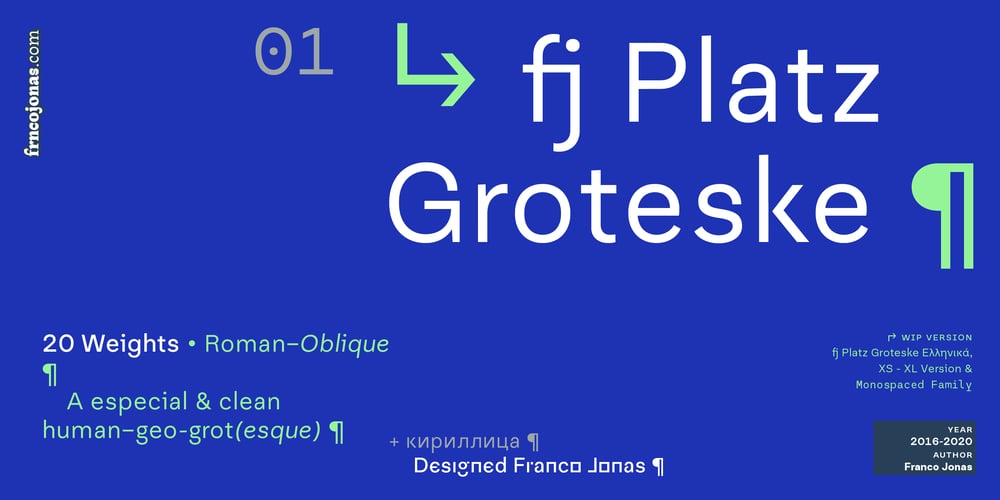
Platz Groteske FJ Font Family was designed by Franco Jonas and published by Frncojonastype. Platz Groteske FJ contains 18 styles and family package options. fj Platz Groteske™ is the new font from frncojonastype project that culminates after almost 5 years of learning and development. fj Platz Groteske™ is a Neo-grotesk font with slight geometrical proportions with humanistic terminations. For this occasion, this font will show the normal version, however, the entire project contemplate condensed family, extended and the development of alphabets as Cyrrilic and Greek.This proposal is to improve the legibility in the Neo-grotesk fonts with generous gaps, vertical and square counter form and ascendents that exceed slightly the capitals. Counts with old numbers, small caps, modern numbers, tabular, numerators and denominators to fraccions, reference numbers to notes and formulas to face confidant and complex different stages.Ideal to editorial projects of informative content – scientific and titular of a huge impact because of the various alternative characters, stylistic options and a optometrical version to risky designers.To exclusive licenses and to follow the develop of this project, please visit frncojonas.com (WIP)Learn about upcoming releases, work in progress and get to know us better!Instagram: @frnco.jonas